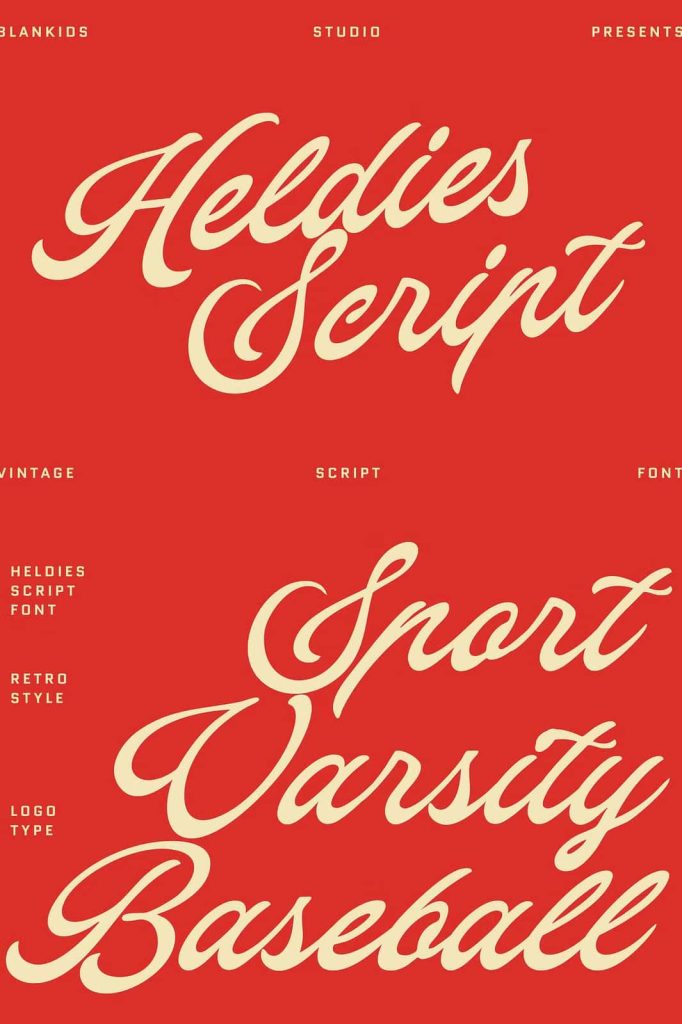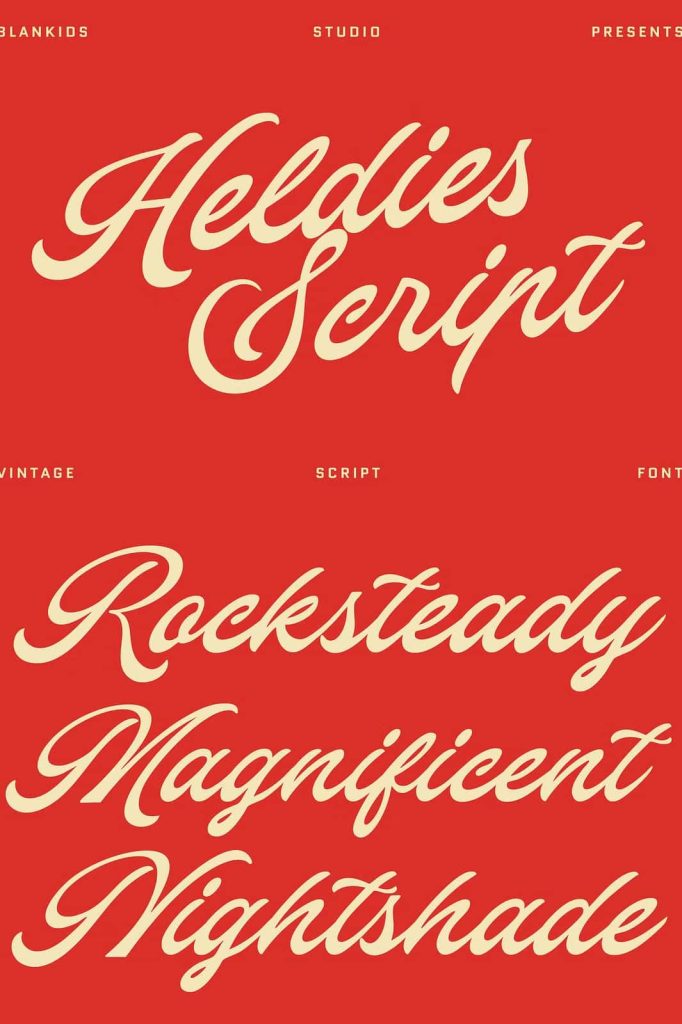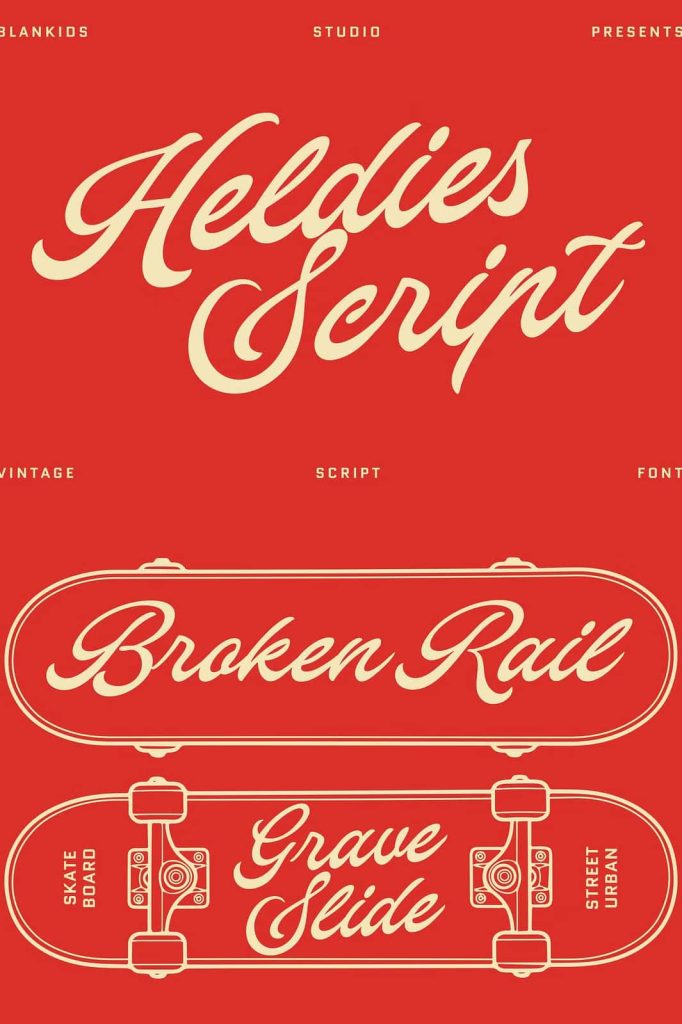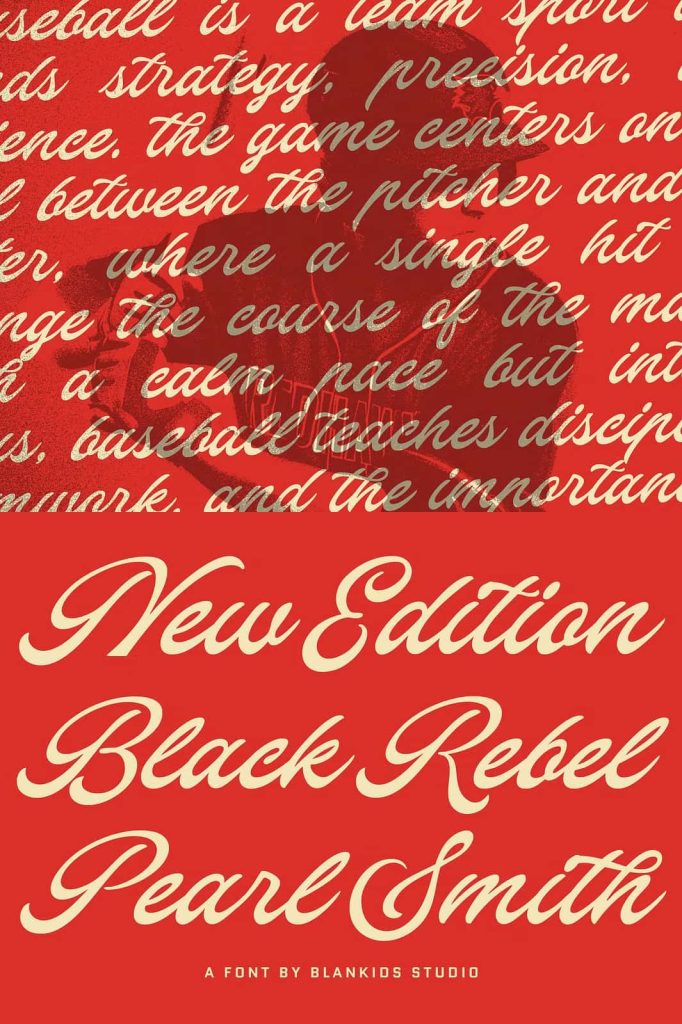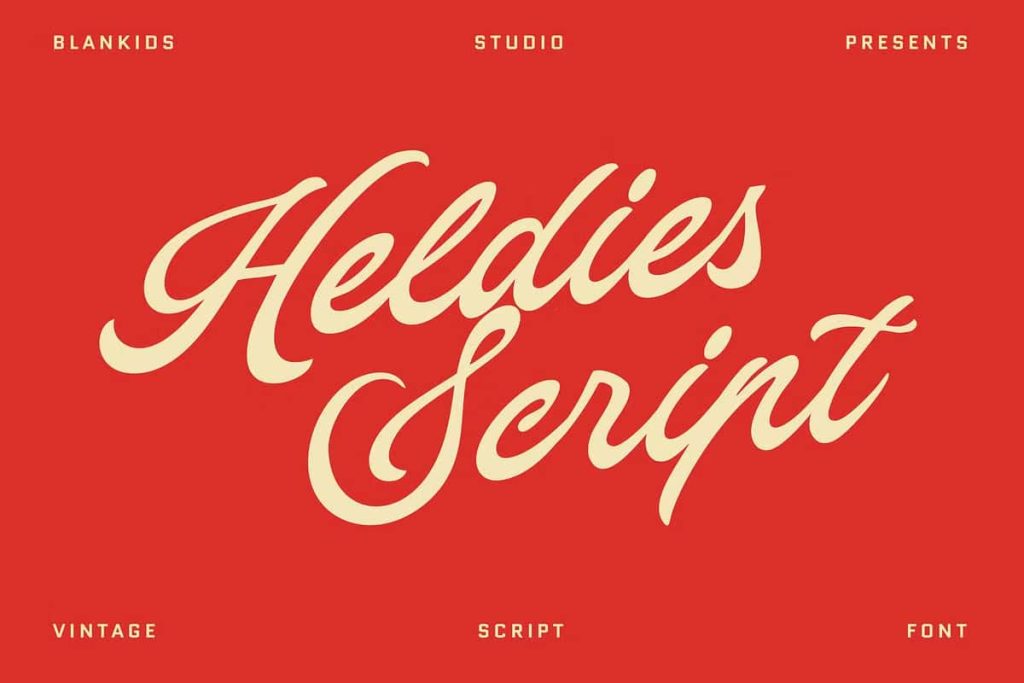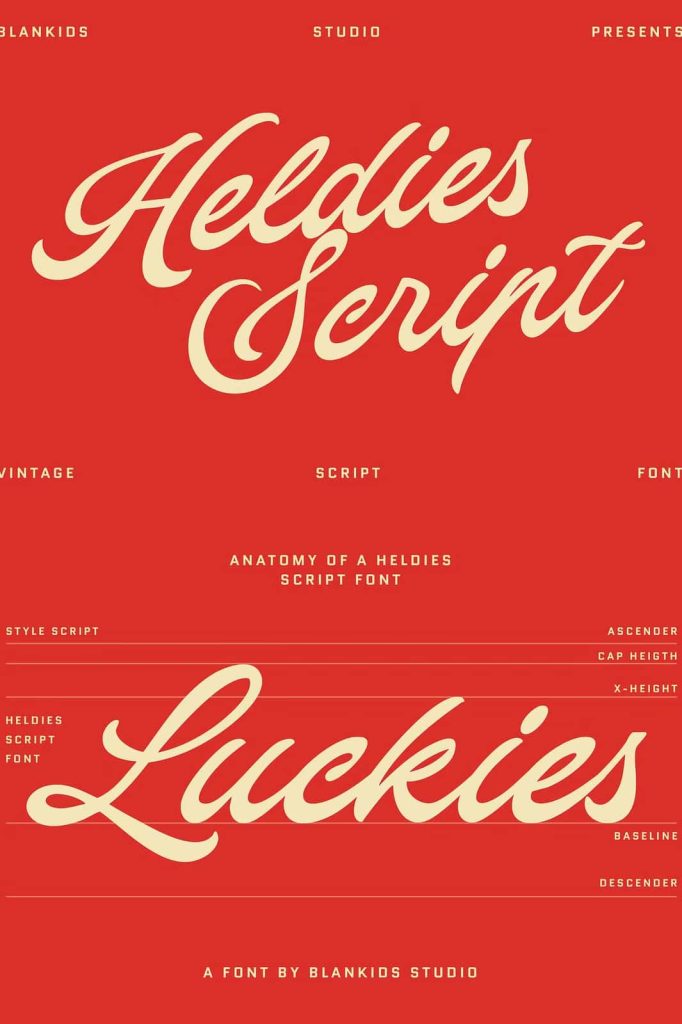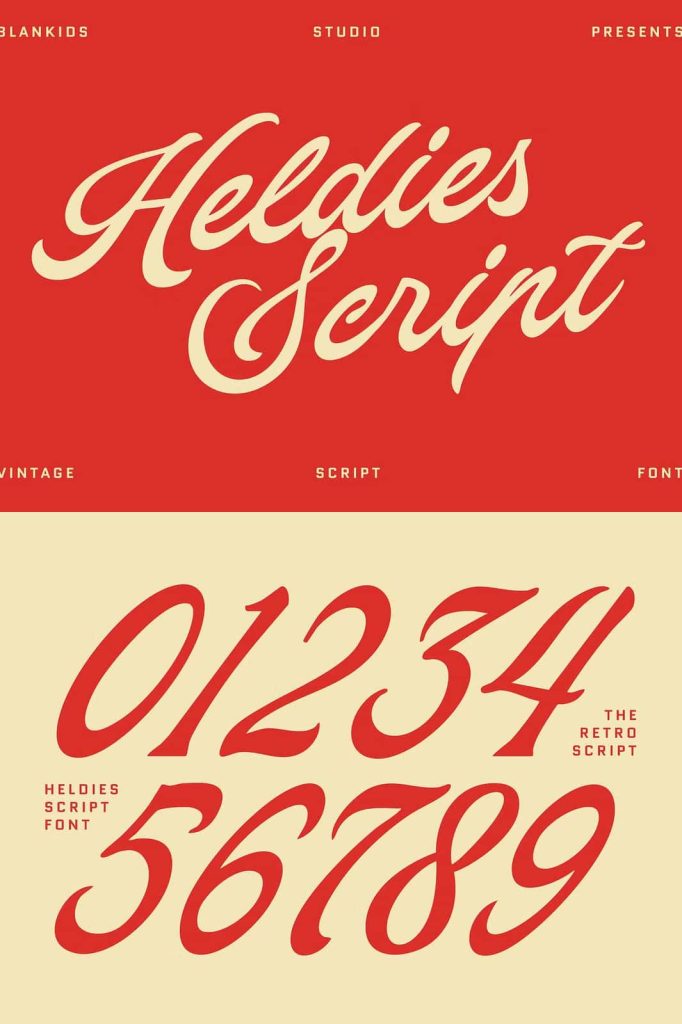
Heldies Script Font – Retro Script with Timeless Charm
Heldies Script Font is a beautifully crafted retro-inspired script typeface that combines timeless elegance with vintage character. Designed to capture the warmth and charm of classic handwritten lettering, this font features flowing strokes, graceful curves, and balanced letterforms that instantly give your projects an authentic handcrafted appearance. Whether you are creating branding materials, eye-catching logos, stylish packaging, or memorable invitations, Heldies Script Font delivers a refined yet approachable aesthetic that never goes out of style.
Inspired by the golden era of retro typography, Heldies Script Font embraces nostalgic design while remaining highly functional for today’s creative needs. Every character has been carefully designed to maintain readability without sacrificing its artistic personality. The result is a versatile script font that works effortlessly across both digital and print media, making it an excellent addition to any designer’s font collection.
Classic Retro Style with Modern Flexibility
Heldies Script Font draws inspiration from vintage signage, classic advertisements, handwritten lettering, and traditional script typography. Its smooth connections and elegant curves create a natural handwritten appearance that feels authentic rather than overly decorative. While it reflects the beauty of retro design, the font also adapts perfectly to modern layouts and contemporary branding.
This balance between classic inspiration and modern usability allows Heldies Script Font to fit a wide range of creative applications. Whether your project requires a nostalgic atmosphere or simply a sophisticated handwritten touch, this font offers the flexibility needed to bring your ideas to life.
Beautiful Letterforms with Natural Flow
One of the defining features of Heldies Script Font is its carefully balanced letter construction. Each character flows naturally into the next, creating smooth and consistent word shapes that look elegant across headlines, logos, and decorative text. The rounded terminals and flowing strokes provide visual harmony while maintaining excellent readability.
The handcrafted details help every design feel more personal and inviting. Instead of appearing rigid or mechanical, Heldies Script Font adds warmth and emotion, allowing your typography to communicate personality alongside your message.
Key Features
- Retro-inspired handwritten script style.
- Smooth curves and flowing letter connections.
- Elegant and timeless character design.
- Excellent readability for display typography.
- Ideal for both print and digital projects.
- Adds warmth and personality to every design.
- Suitable for vintage, classic, and modern themes.
Perfect for Creative Design Projects
Heldies Script Font performs exceptionally well across a wide variety of creative industries. Designers, entrepreneurs, marketers, and content creators can use this typeface to create memorable visual identities that leave lasting impressions. Its retro appearance instantly adds authenticity while maintaining the professional quality needed for commercial work.
This versatile font is an excellent choice for:
- Logo design
- Brand identity
- Product packaging
- Business cards
- Wedding invitations
- Greeting cards
- Website headers
- Restaurant menus
- Cafe branding
- Book covers
- Magazine titles
- Poster design
- Apparel graphics
- Merchandise
- Labels and stickers
- Advertising campaigns
- Craft projects
Create Strong Branding with Authentic Personality
Branding succeeds when it creates emotional connections, and typography plays a significant role in achieving that goal. Heldies Script Font gives businesses and creators the ability to communicate authenticity, craftsmanship, and creativity through expressive lettering. Its handwritten appearance makes brands feel more approachable while maintaining an elegant and polished presentation.
Whether you operate a boutique, coffee shop, bakery, fashion label, beauty business, or creative studio, Heldies Script Font helps establish a memorable visual identity that customers recognize and remember.
Suitable for Print and Digital Media
Heldies Script Font adapts seamlessly across various design environments. It performs beautifully in printed materials where the elegant curves and flowing strokes shine with high-quality detail. At the same time, it remains clear and attractive on websites, social media platforms, digital advertisements, and online stores.
This flexibility allows designers to maintain consistent branding across multiple marketing channels without needing separate typefaces for different applications.
Pair Easily with Other Fonts
Another advantage of Heldies Script Font is its ability to pair naturally with other font styles. Combine it with clean sans serif fonts for modern branding, classic serif fonts for luxurious editorial layouts, or minimal geometric typefaces for balanced contemporary compositions. This versatility gives designers greater creative freedom while maintaining visual harmony throughout each project.
If you are looking for a script typeface that blends retro elegance with contemporary usability, Heldies Script Font is an outstanding choice. Its graceful curves, classic handwritten style, and versatile character make it suitable for branding, marketing, editorial design, packaging, social media, and much more. Add Heldies Script Font to your typography collection and bring timeless charm, warmth, and personality to every creative project you create.